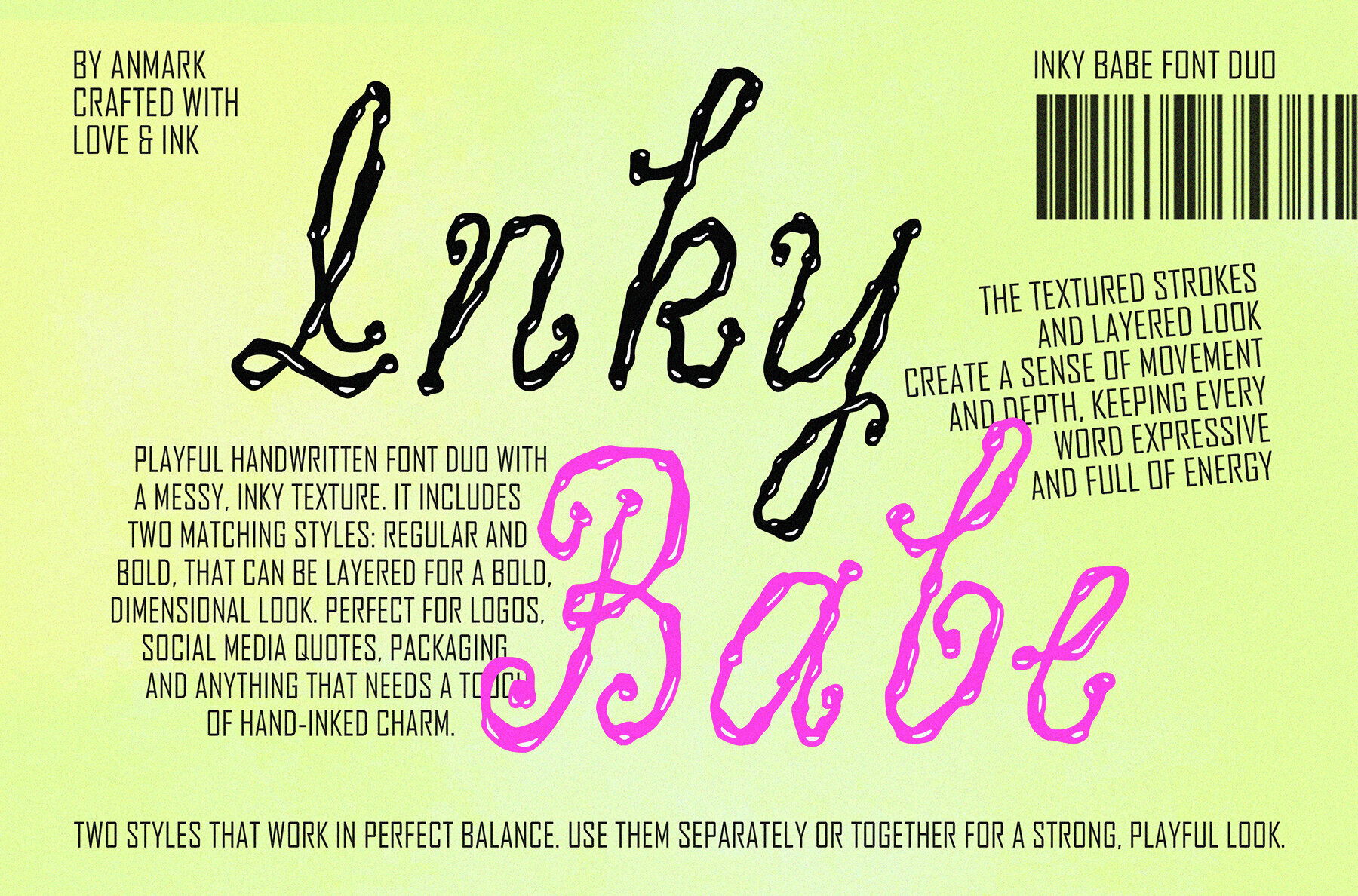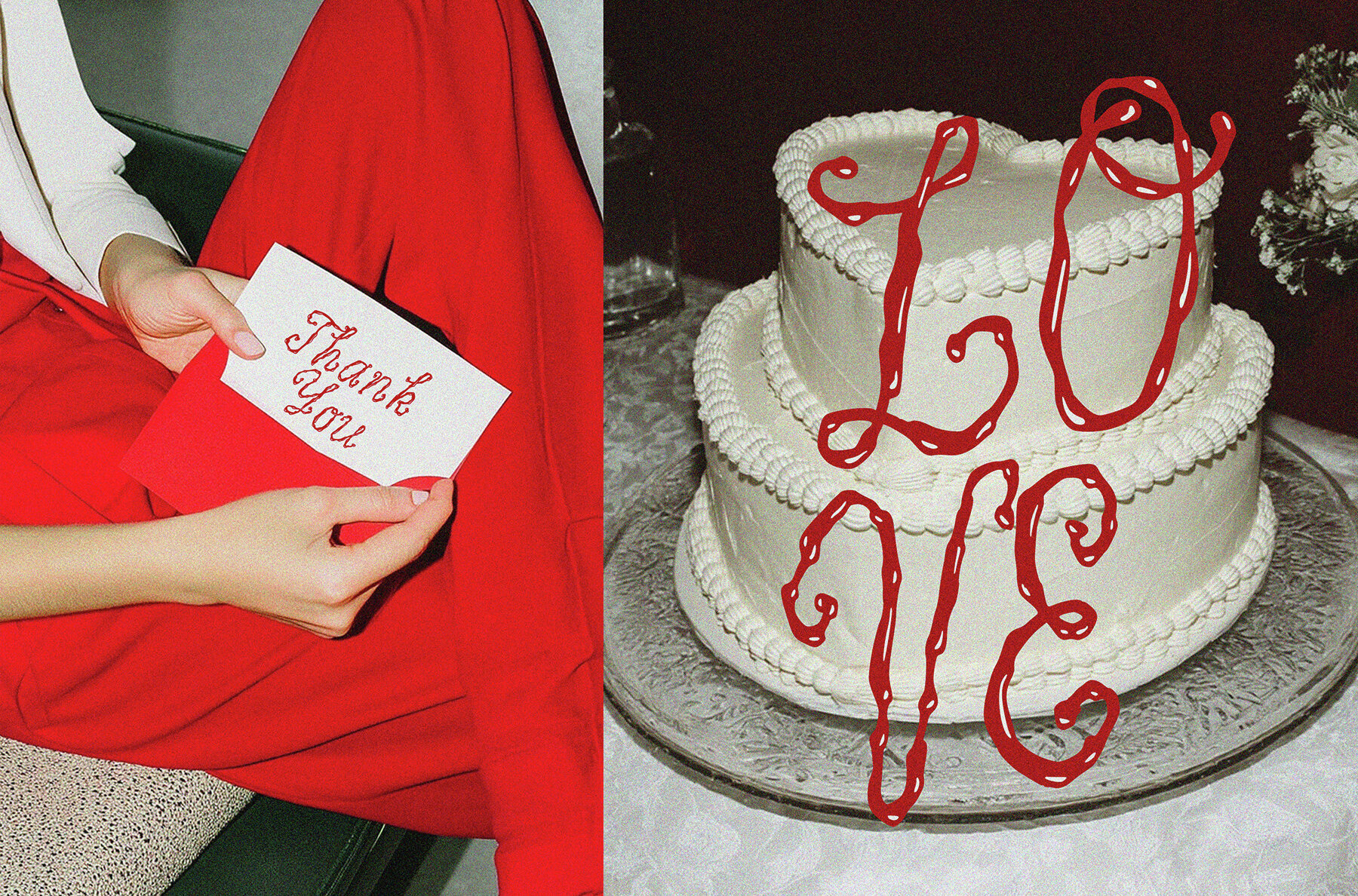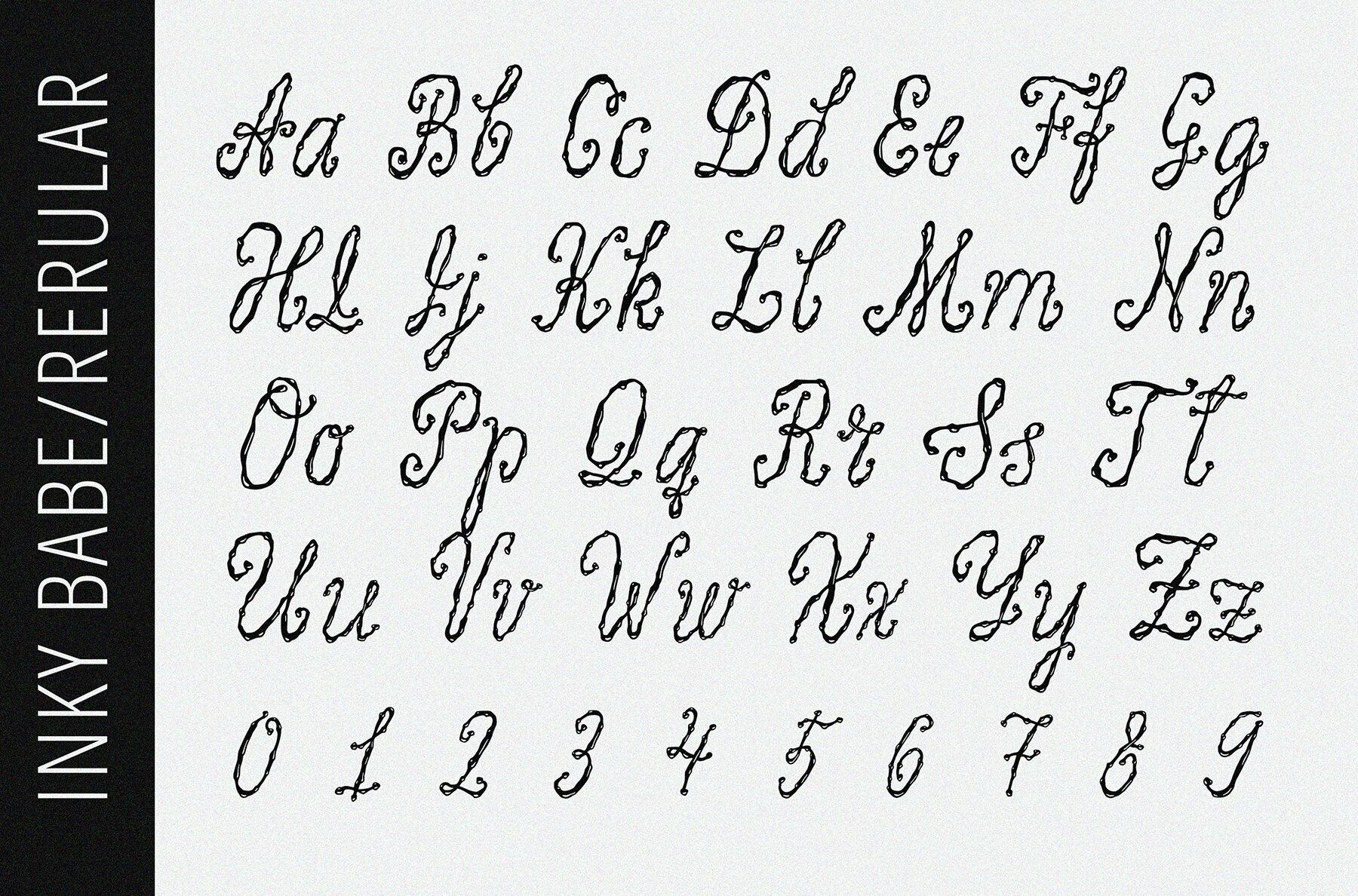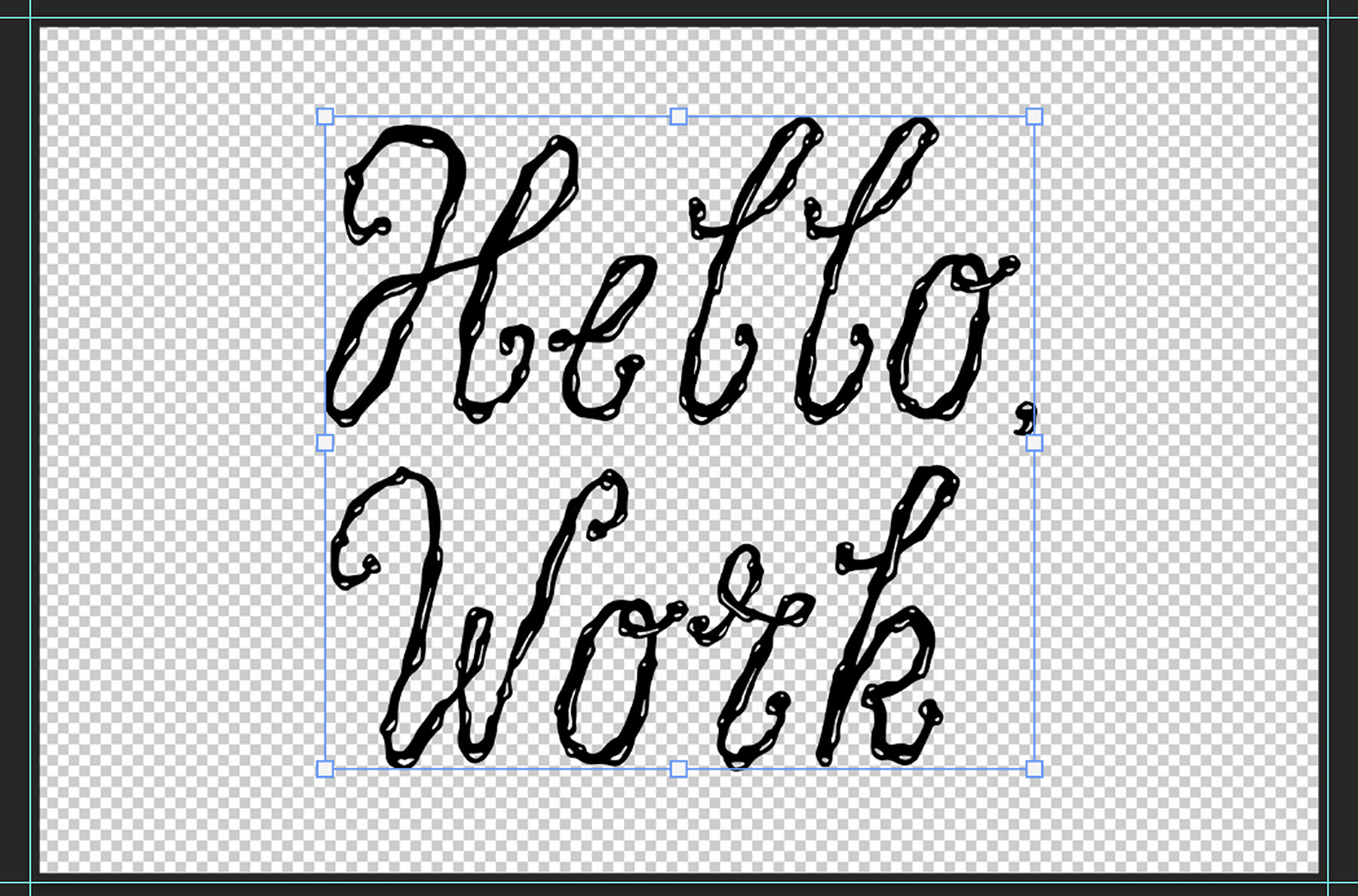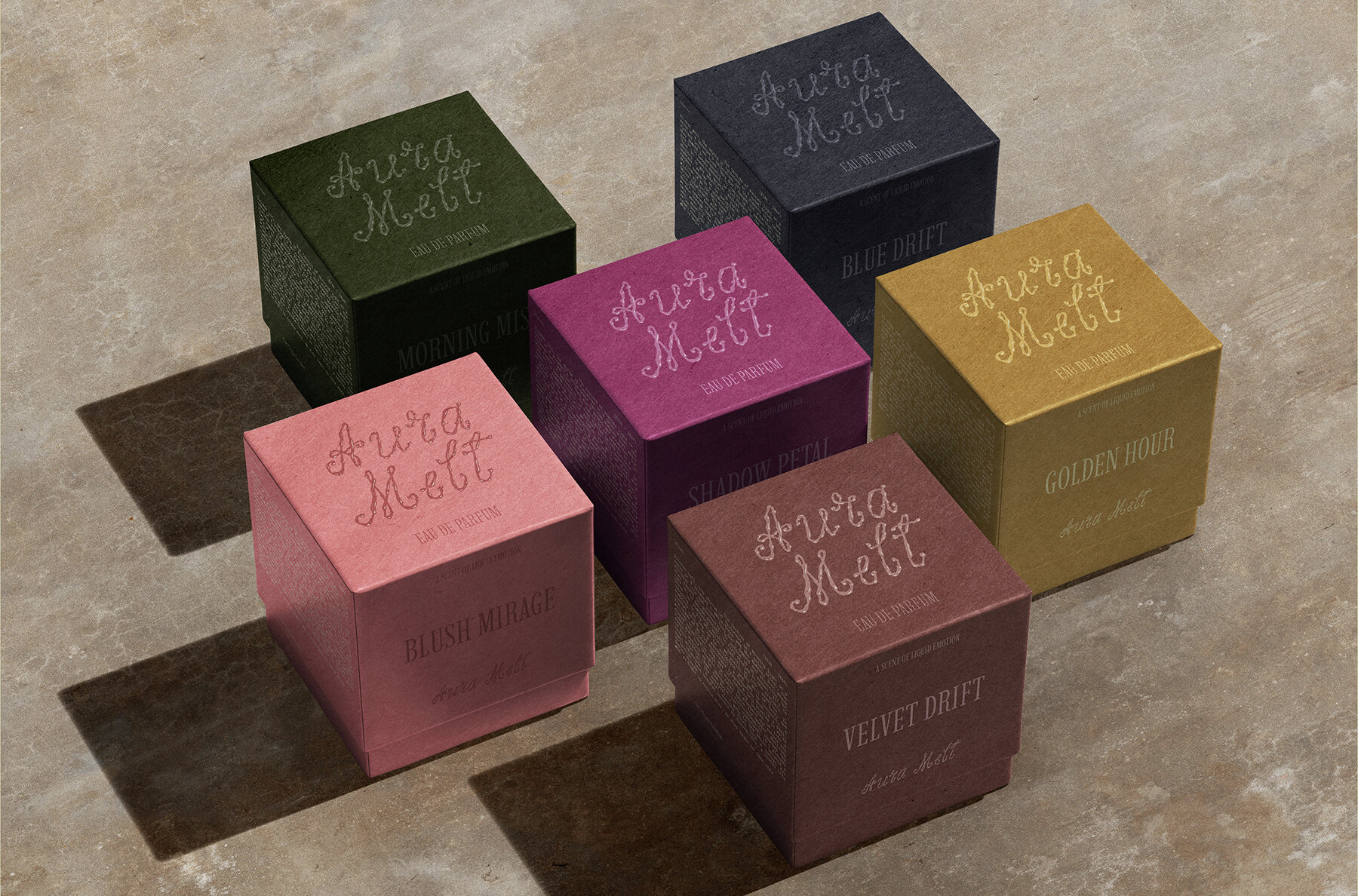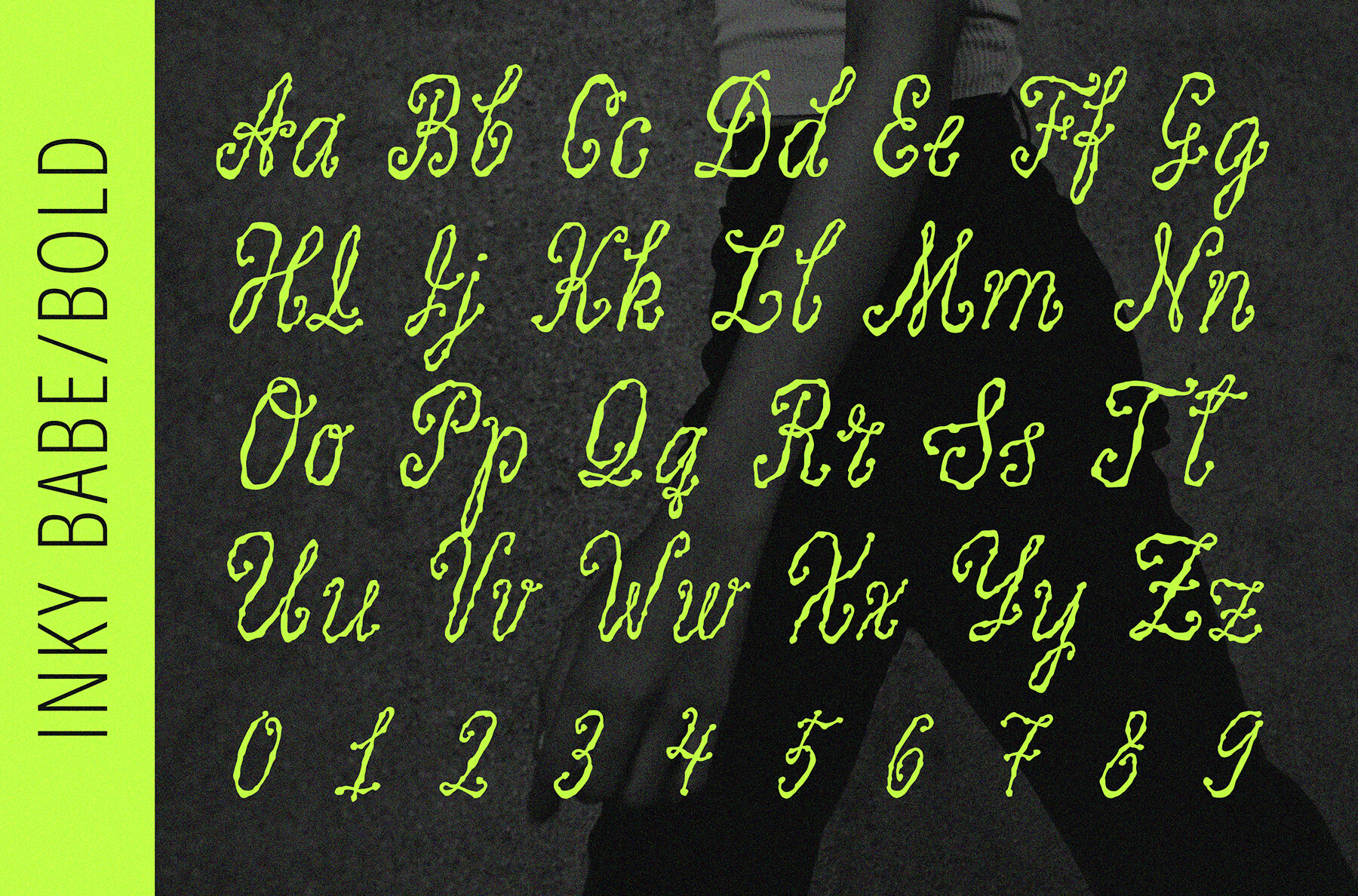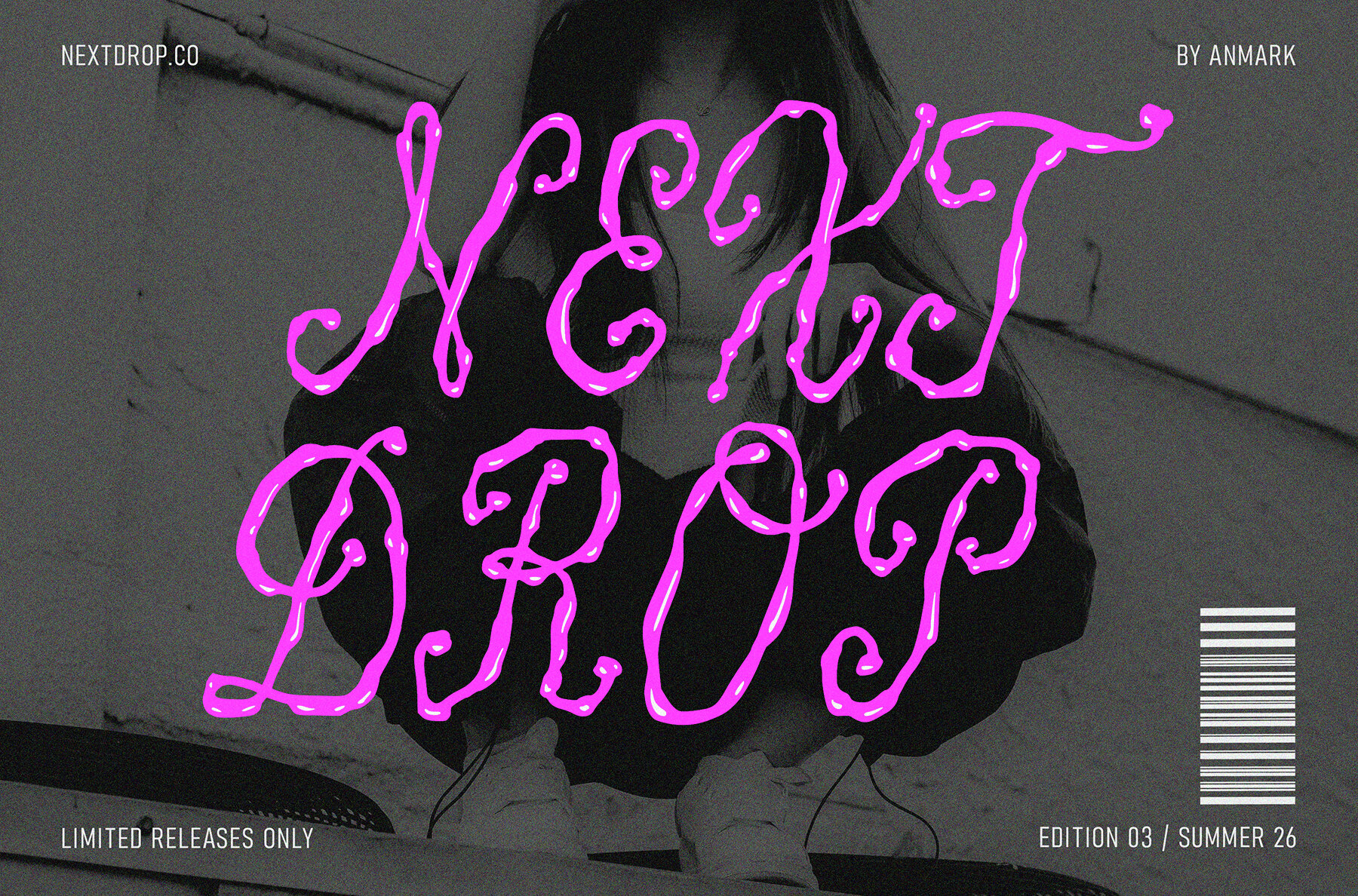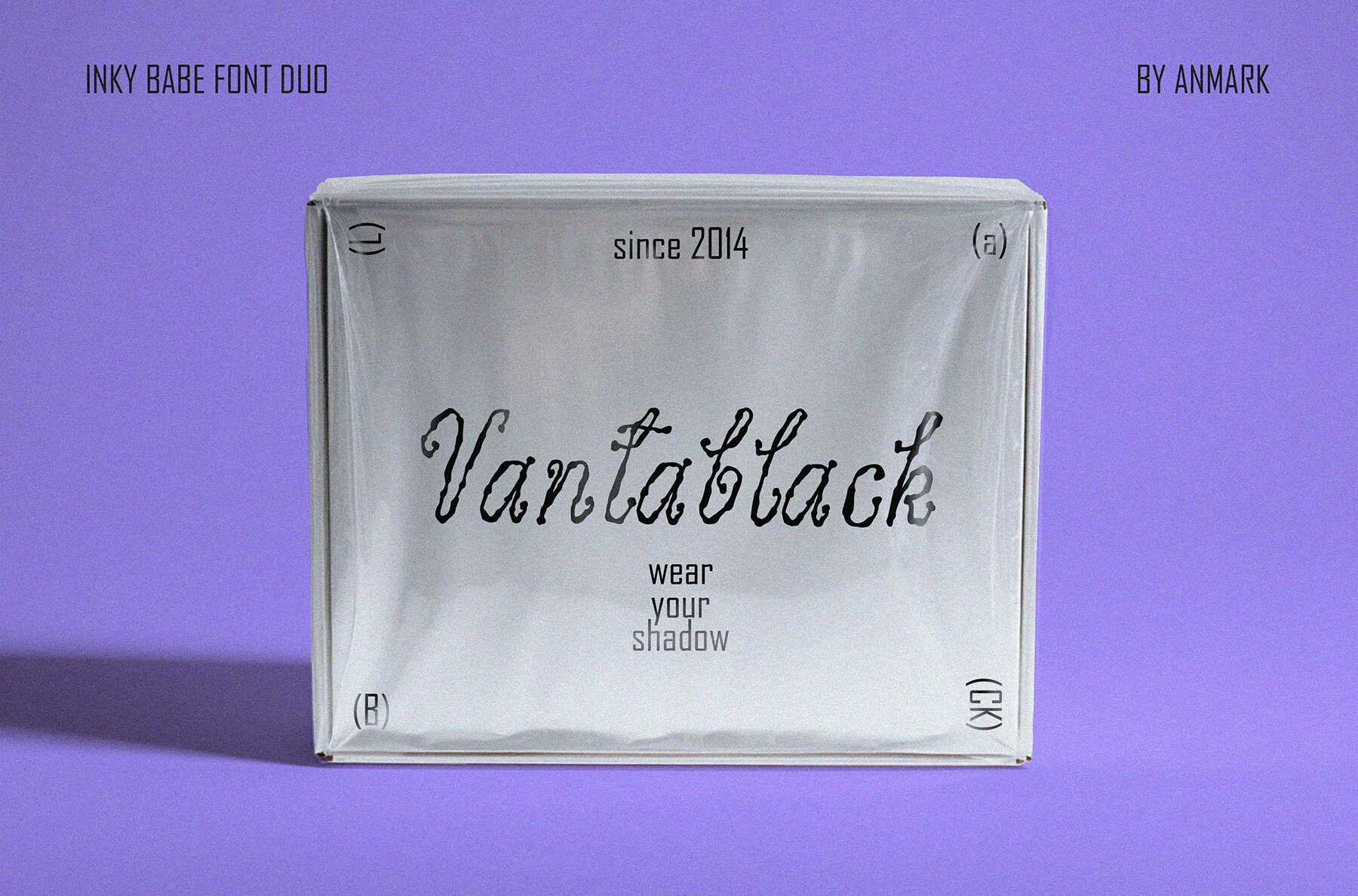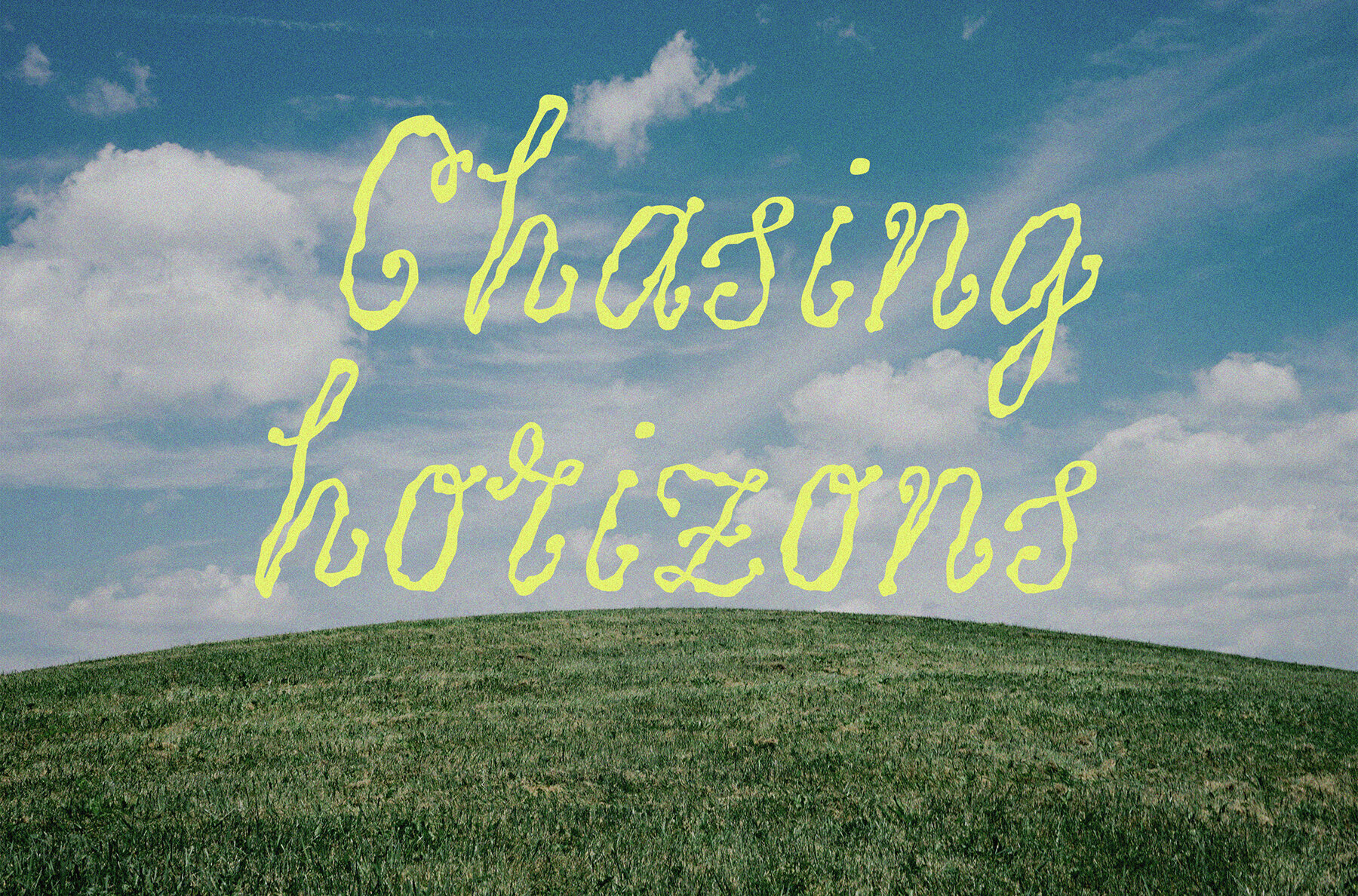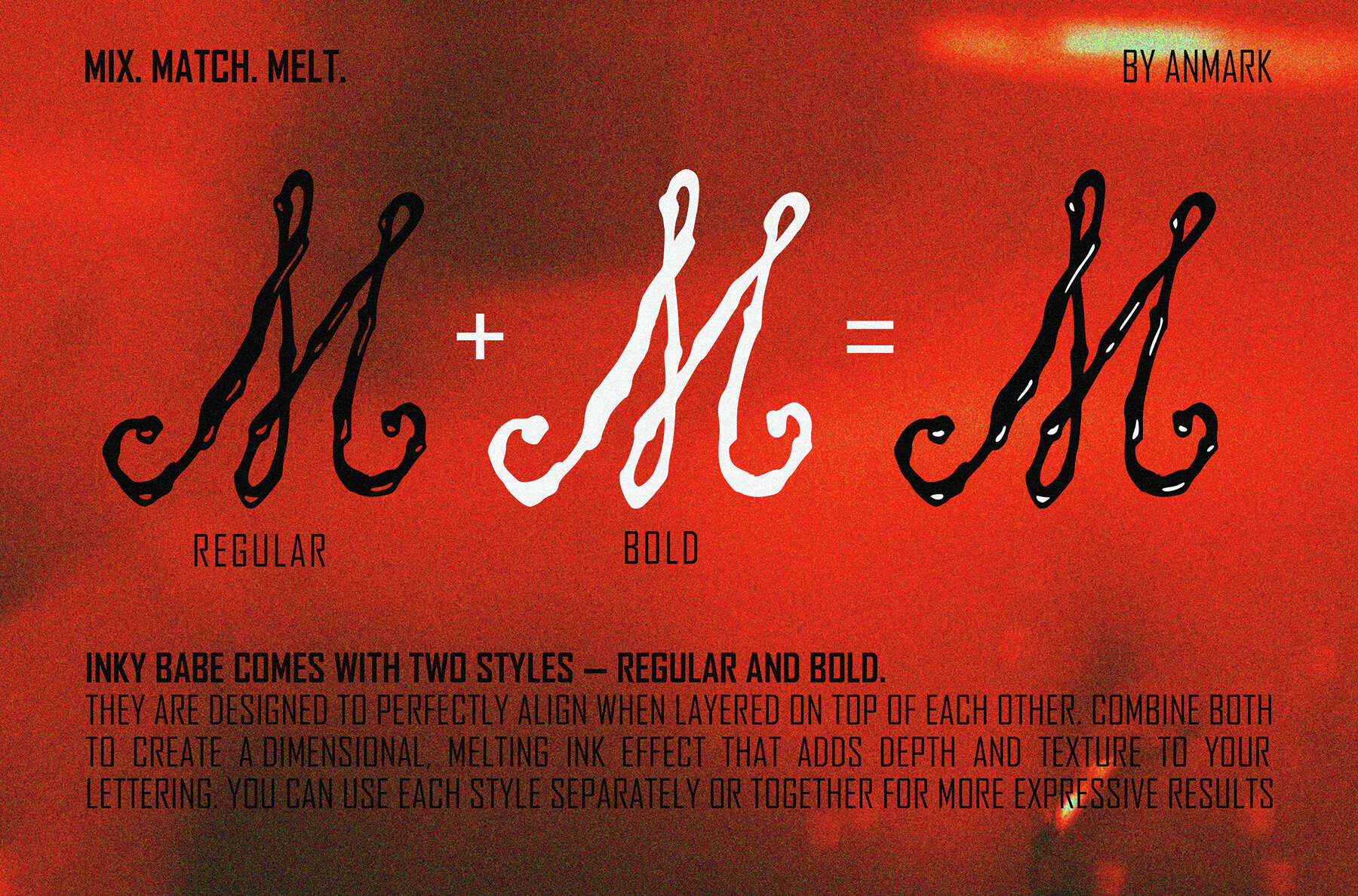
Inky Babe Messy Liquid Font
Inky Babe Regular
Inky Babe Bold
Inky Babe Messy Liquid brings a bold, expressive energy to your designs with its hand-crafted, inky textures. This unique font duo includes both Regular and Bold styles, designed to layer together and create dimensional, attention-grabbing text. Each letter features messy, flowing strokes that add movement and personality, making every word stand out with artistic flair. The spontaneous character in both styles makes this font ideal for projects that call for a handcrafted or playful aesthetic. Use it for logos, packaging, social media graphics, invitations, greeting cards, and branding materials. The flexibility of the duo lets you experiment with combinations, ensuring text always feels fresh and lively.Inky Babe Messy Liquid Font Duo